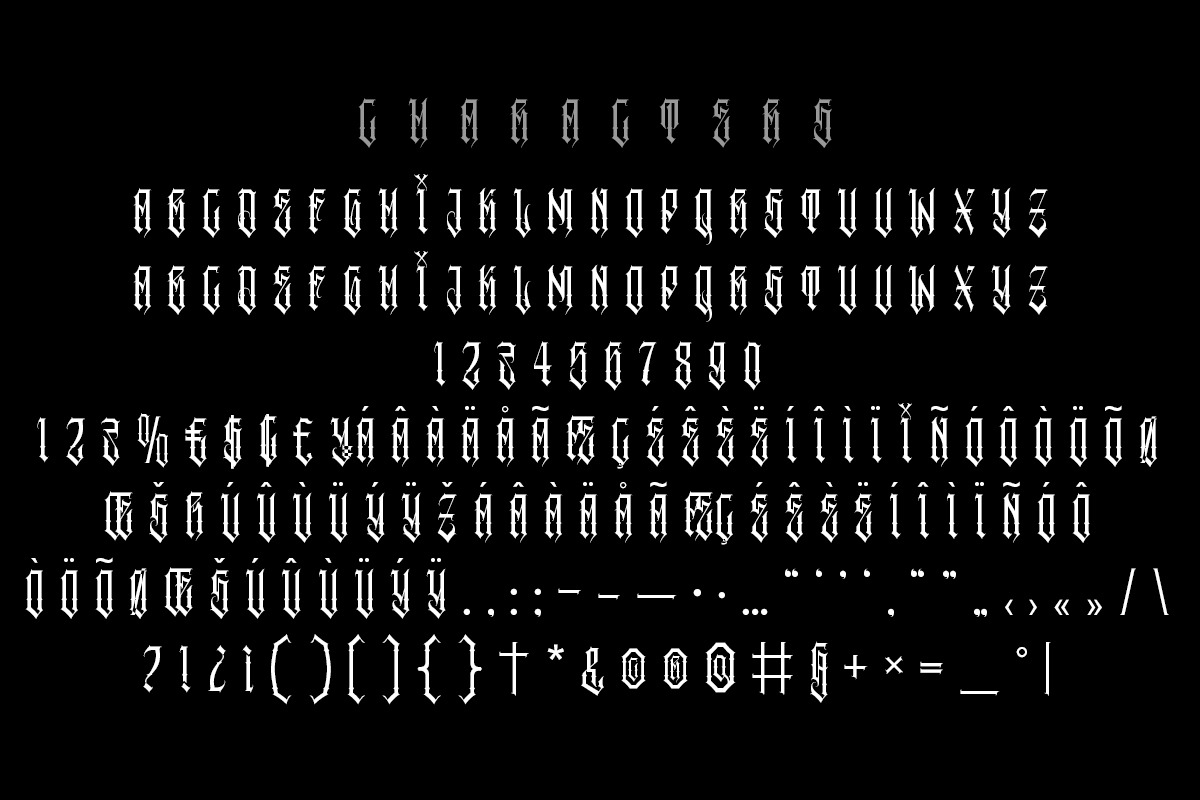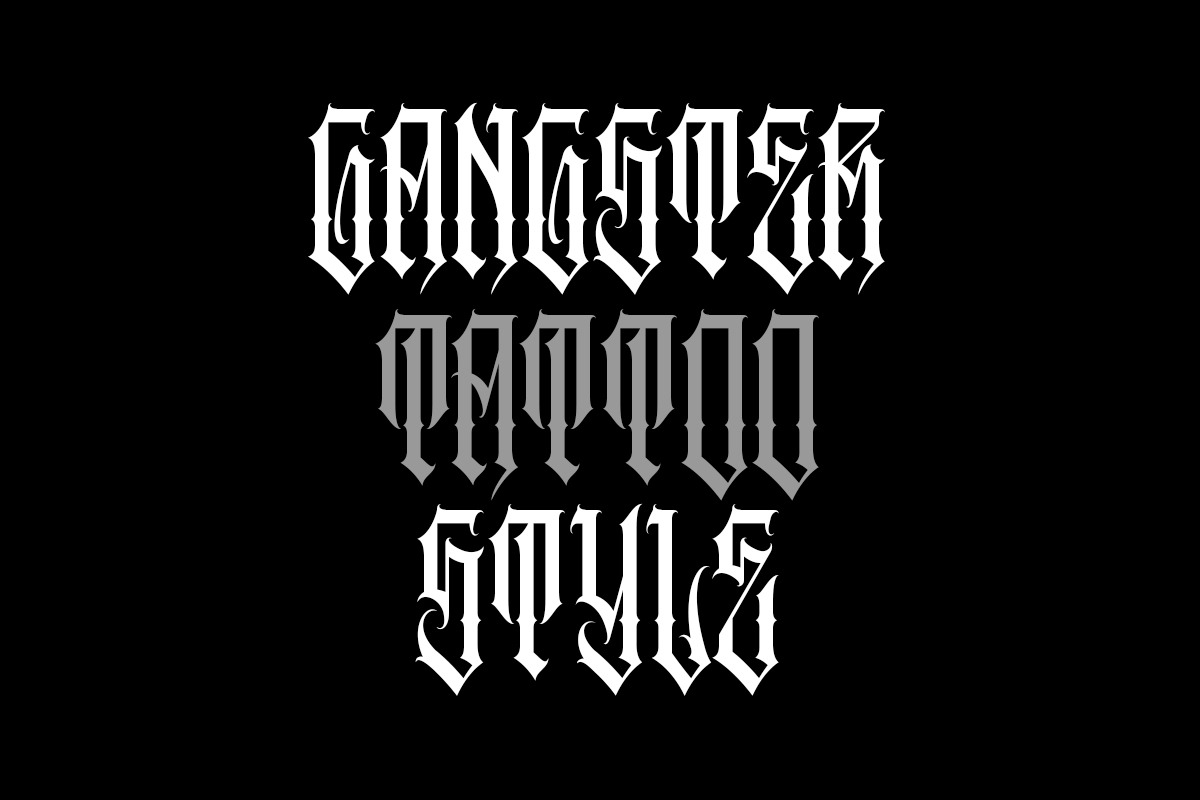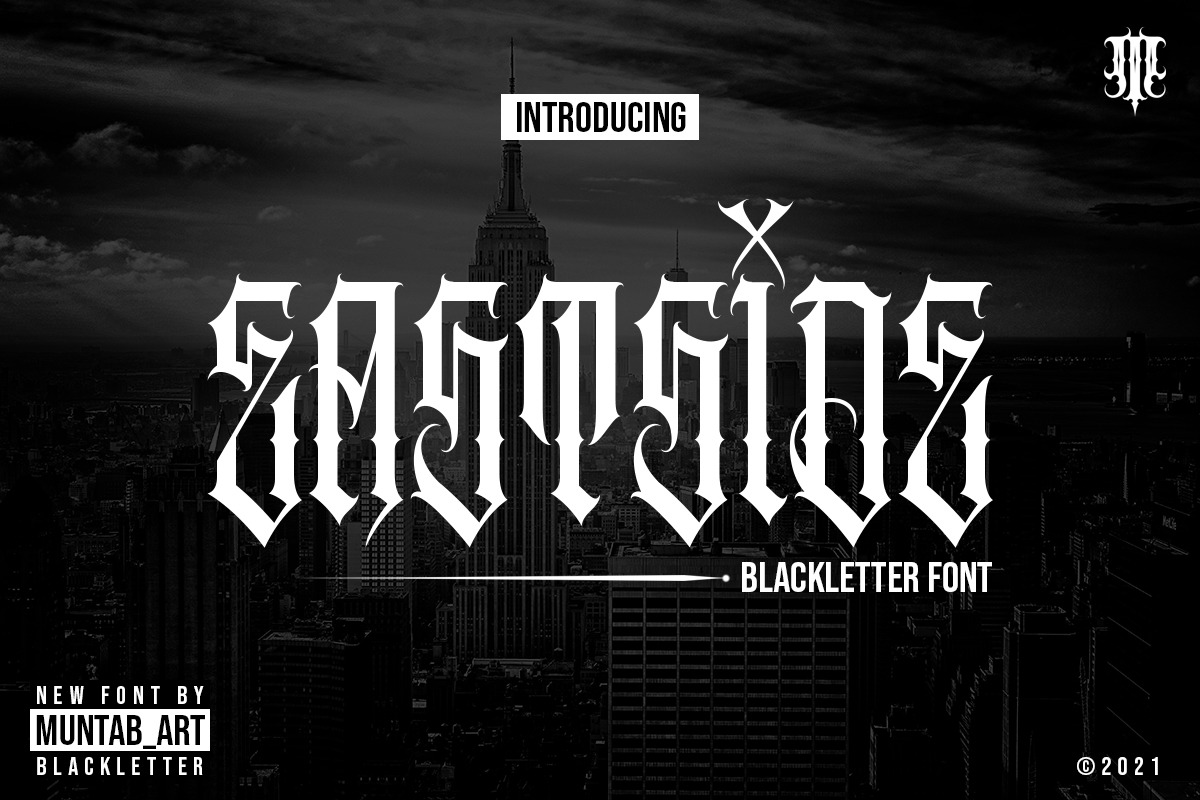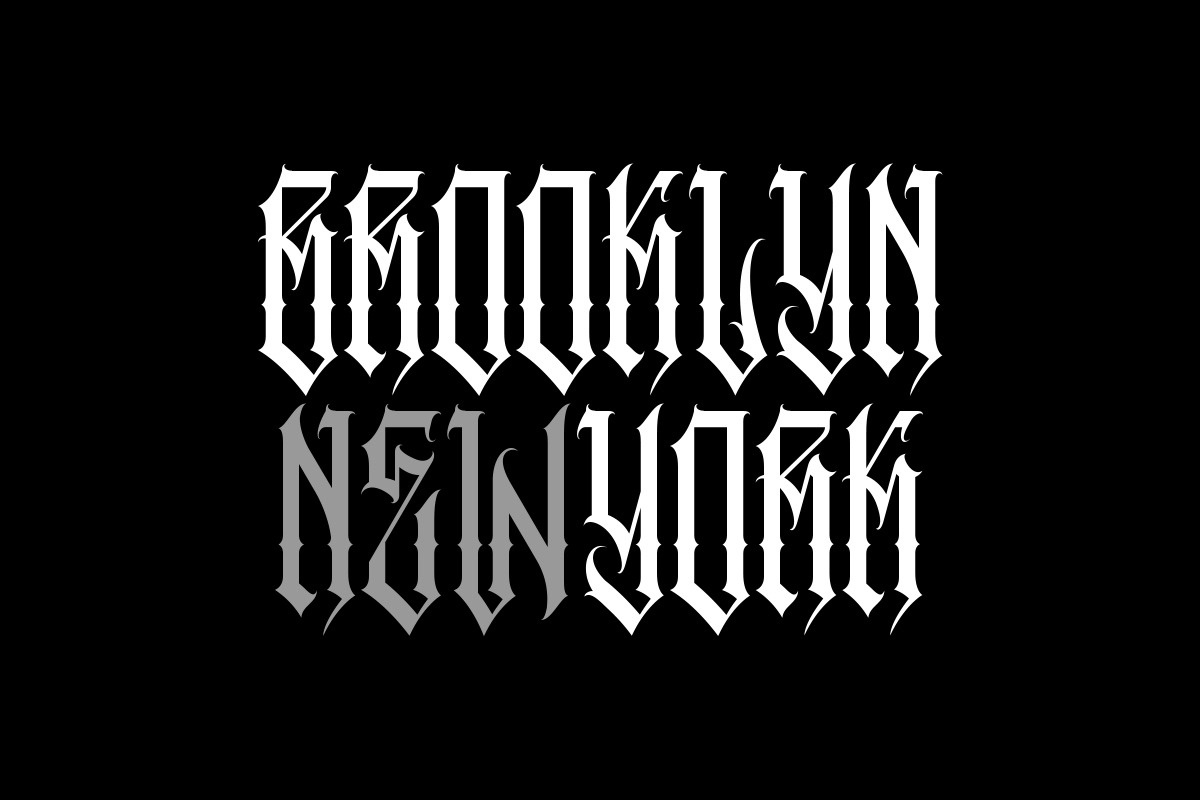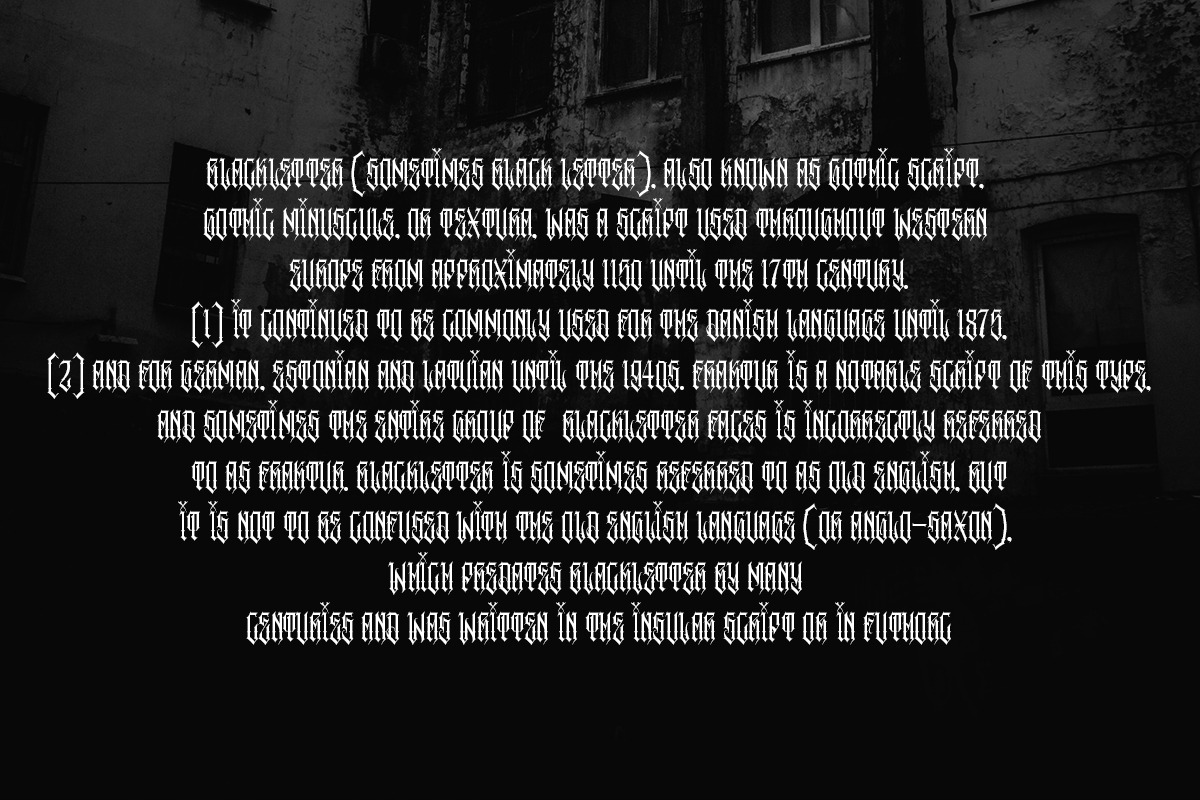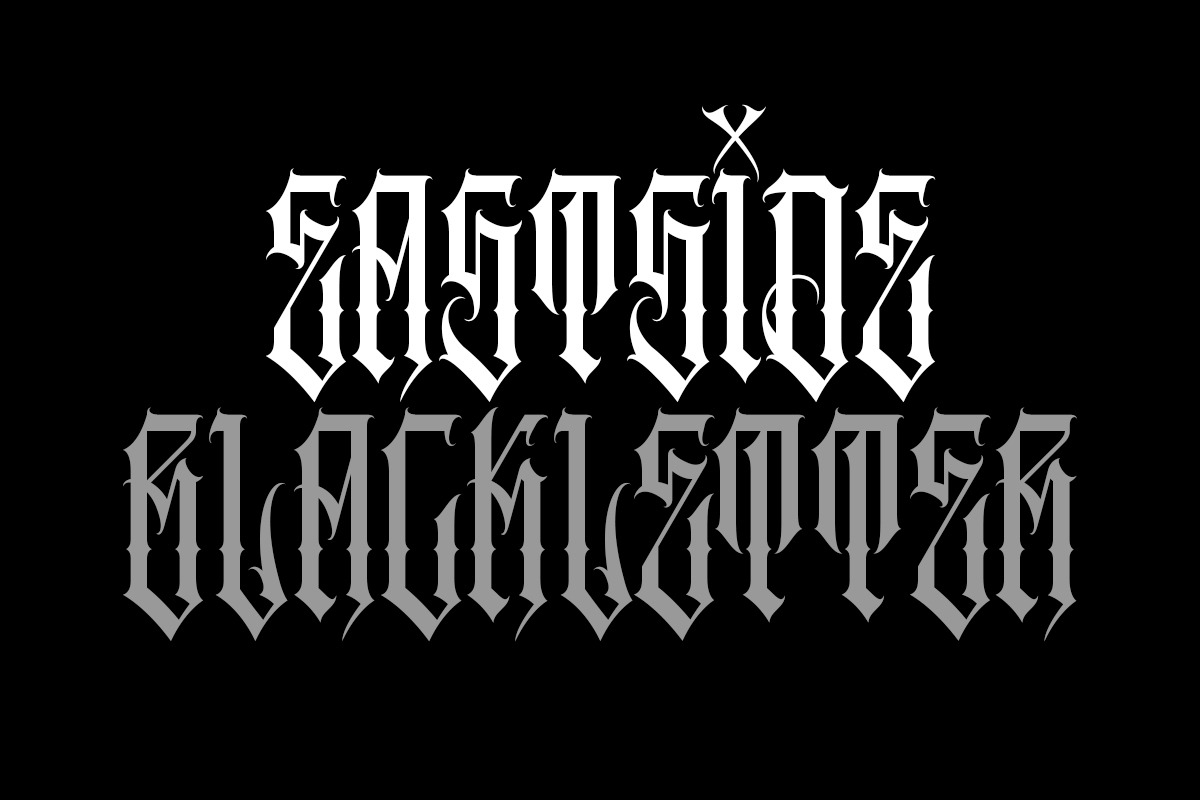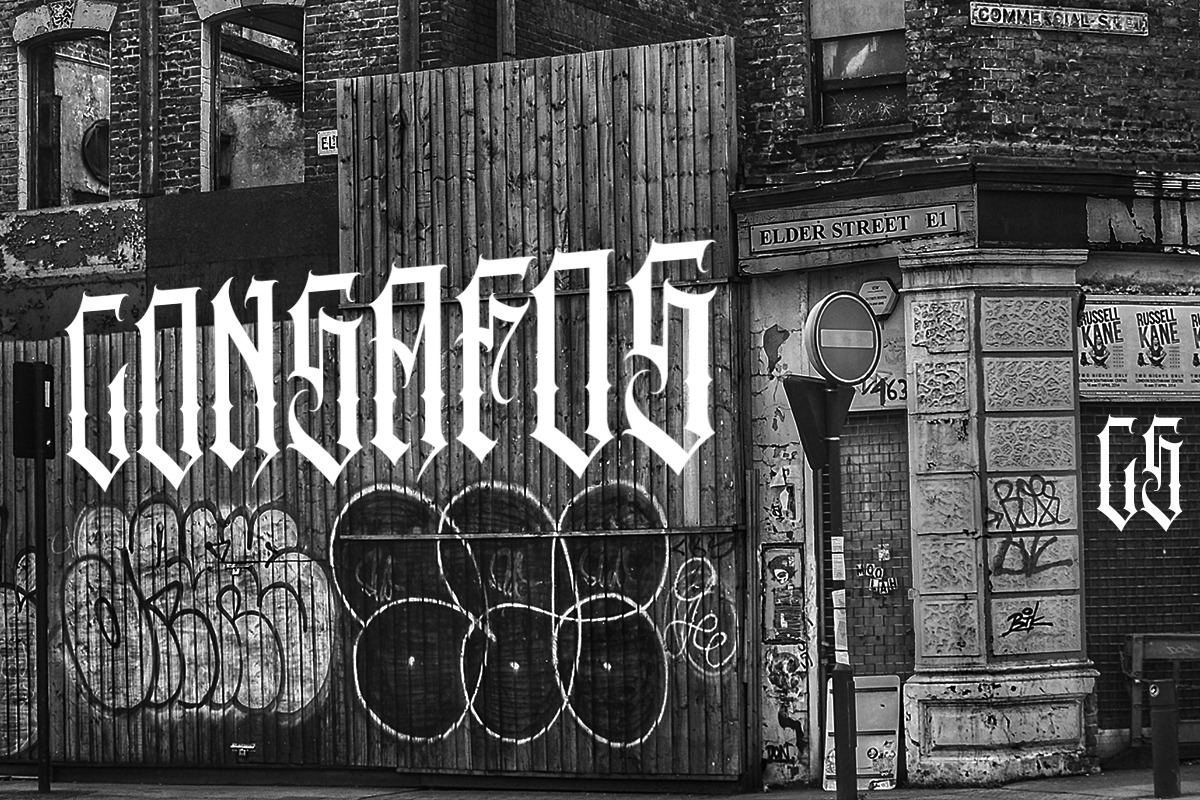
Eastside | Blackletter font
Eastside fonts includes uppercase letters, numerals, a large range of punctuation. Blackletter font with modern style. Created for poster, web design, branding, illustrations, badges, shirt design and some other works.